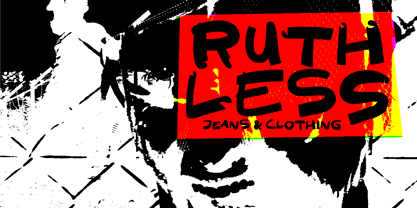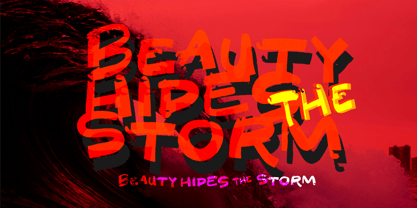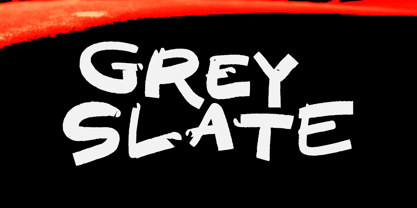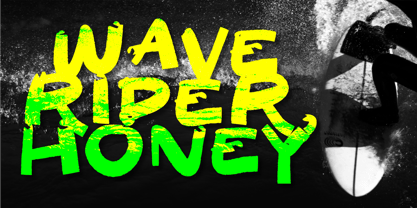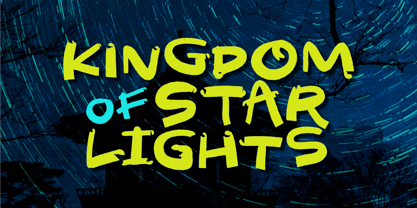
Grey Slate
by Epiclinez
The Grey Slate Font Family was designed by Aldy Sidik and published by Epiclinez. Grey Slate contains 1 styles.
Grey Slate is a bold, grunge distressed display font built to hit hard and leave a mark. Inspired by cracked concrete, weathered stone, and raw urban textures, every letter carries a rugged, worn-out edge that feels loud, rebellious, and unapologetically gritty. With its rough strokes, uneven edges, and naturally eroded details, Grey Slate delivers powerful visual impact—perfect for movie titles, posters, album covers, streetwear branding, and high-energy designs that demand attention. It captures the essence of chaos, tension, and raw emotion, making it ideal for horror, action, thriller, and underground themes. Whether you're crafting a cinematic headline or a bold graphic statement, Grey Slate brings an intense, textured presence that refuses to be ignored.